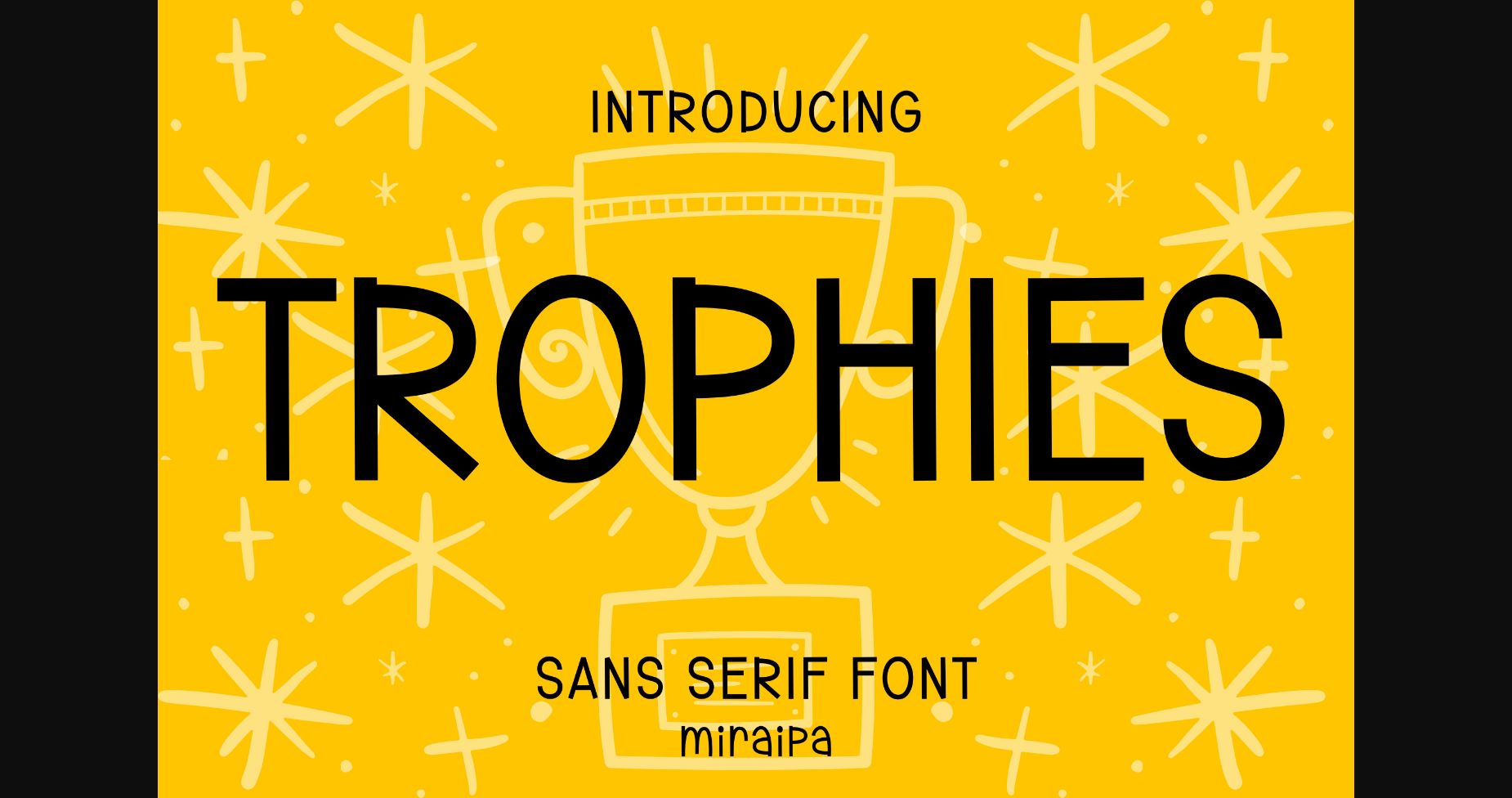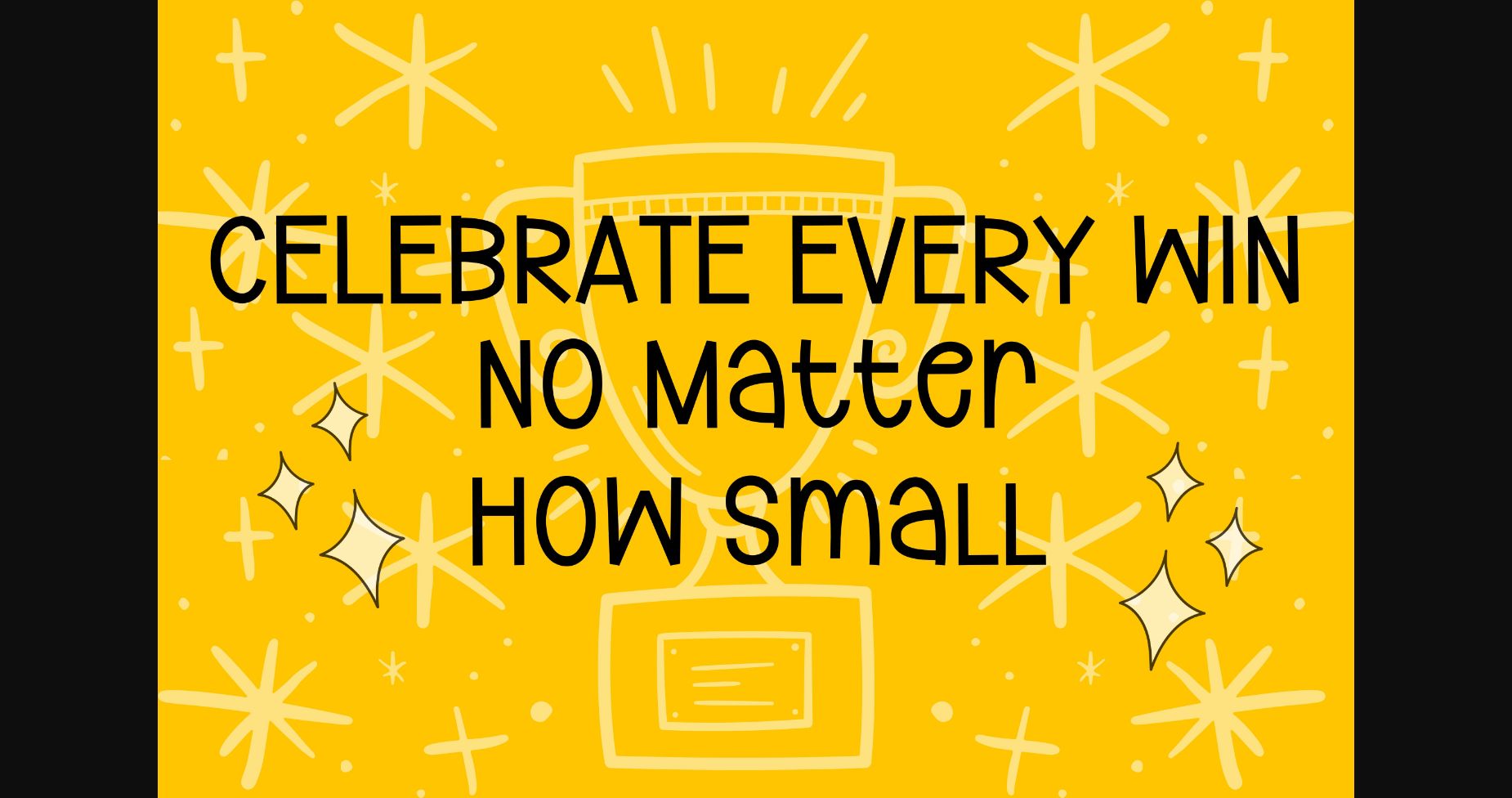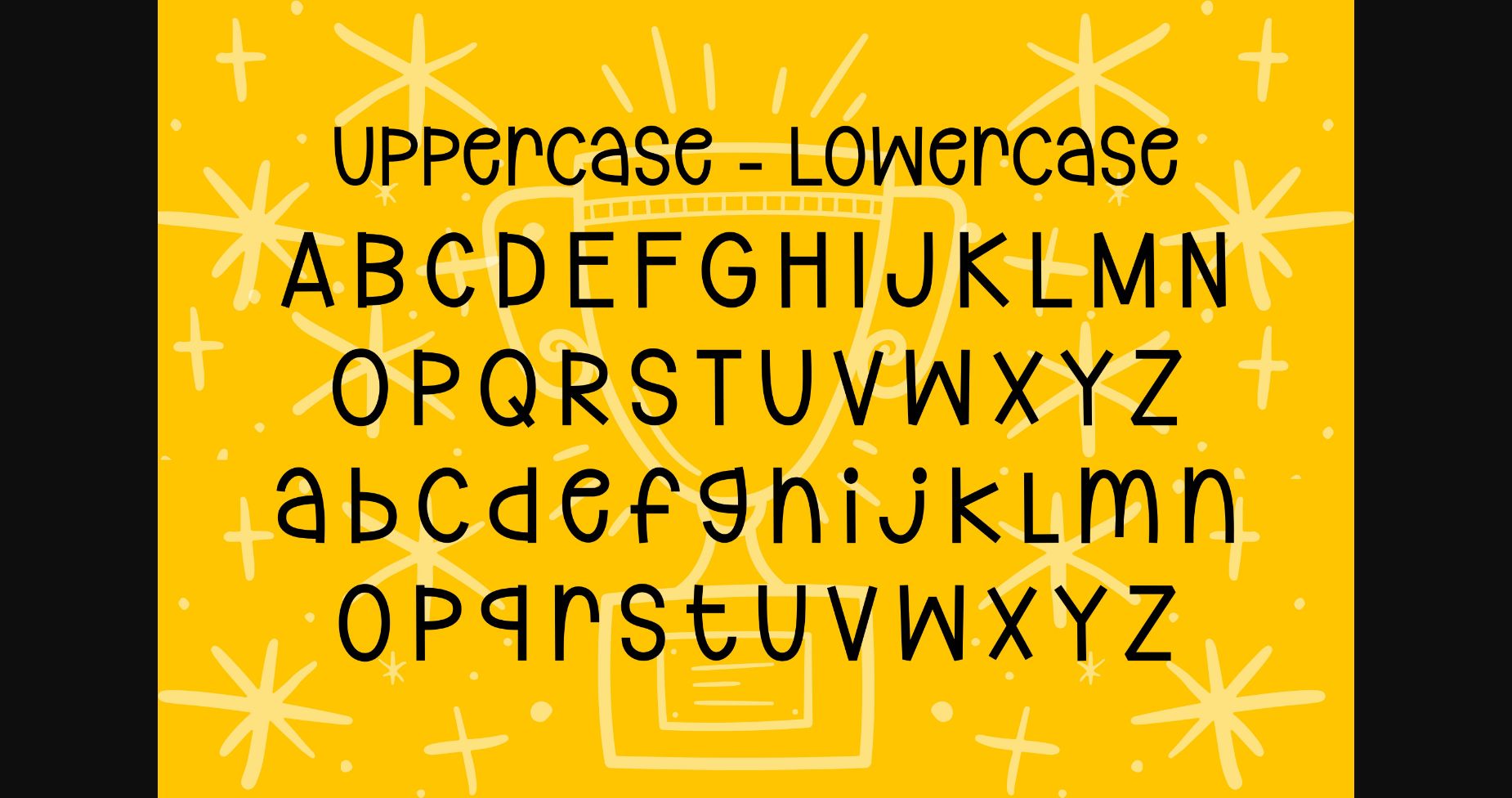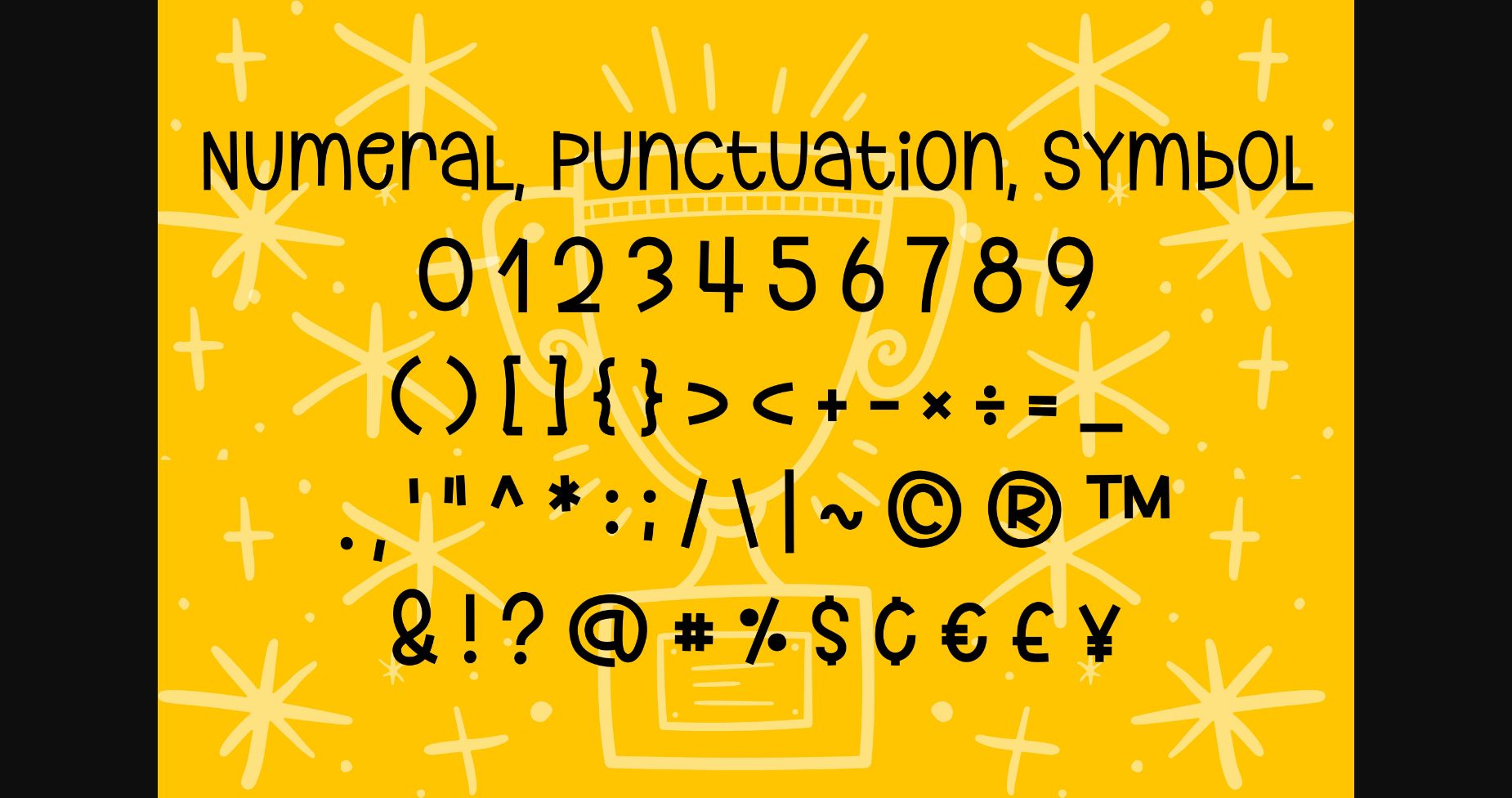
About Trophies Font
Trophies is designed in a modern and minimalist handwritten sans serif font style. It would be awesome for your projects or diary planner. Try it for your innovative projects such as Easter, back to school, weddings, party decorations, invitations, or anything that needs a friendly touch.